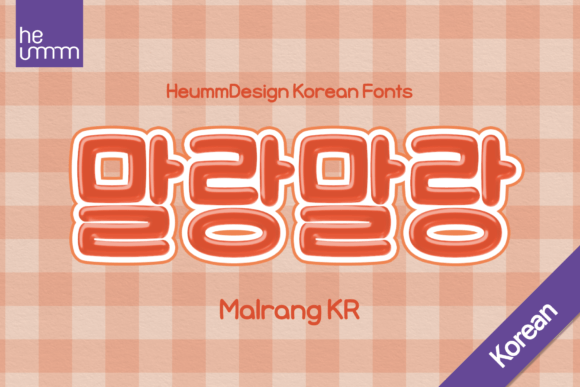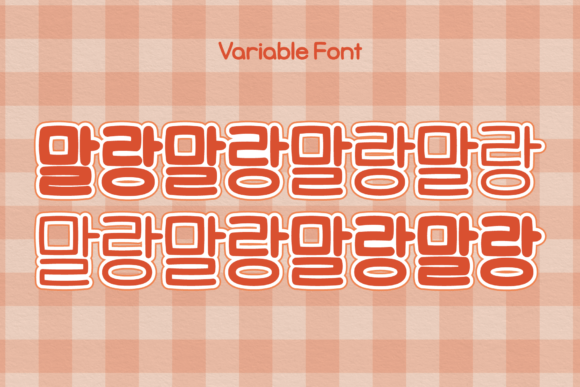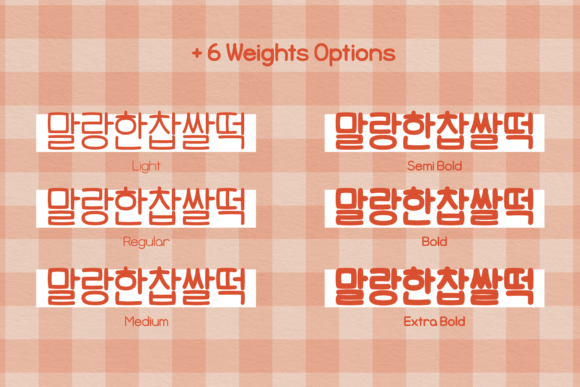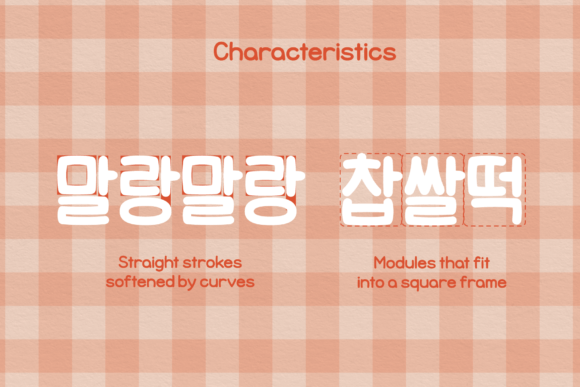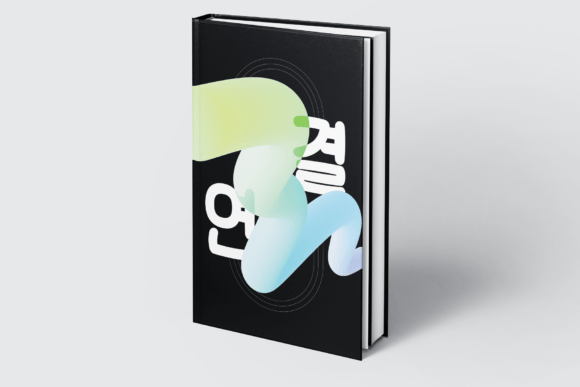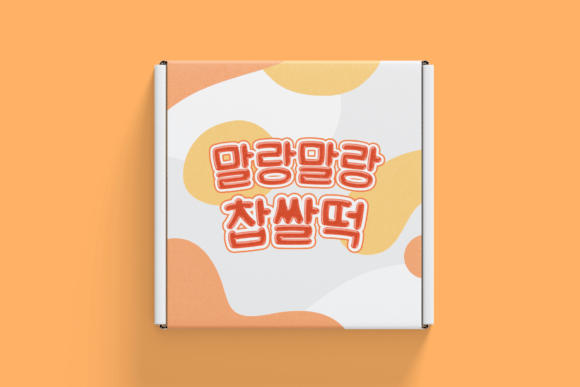
The Perfect Blend of Modernity and Tradition: Hu Malrang Kr Font
Imagine you’re sipping a warm cup of coffee on a chilly morning, surrounded by the gentle hum of creative energy. As a designer, you’re searching for that perfect font to bring your vision to life, something that effortlessly blends modernity with the timeless charm of traditional Korean typography. Enter the ‘Hu Malrang KR’ font, a game-changing addition to your design arsenal.
This innovative font is designed to provide a soft, rounded feel to its tightly packed modules, creating a visually appealing contrast that’s perfect for modern designs. With its variable function, you can fine-tune the thickness to suit your needs, and six basic weights are available for use in programs that don’t support the variable function. The ‘Hu Malrang KR’ font is a valuable addition to any designer’s toolkit, offering unparalleled flexibility and creative possibilities.
Hu Malrang Kr Font Key Features
- Font Family: Hu Malrang Kr is a unique Korean font family designed for various applications.
- Unique Characteristics: Hu Malrang Kr font features a distinctive and modern design, with clean lines and a sleek aesthetic that is well-suited for digital and print applications.
- Language Support: Supports the Korean language, making it an ideal choice for publications, websites, and other materials targeting a Korean-speaking audience.
Design Review: Hu Malrang Kr Font
At first glance, the Hu Malrang Kr font has a unique and modern aesthetic that catches the eye. ✨ The font’s bold lines and geometric shapes give it a distinctive look that would be perfect for modern and minimalist designs. ✨ The font’s adaptability to various sizes and styles also makes it a versatile choice for different applications.
However, upon closer inspection, I noticed some limitations that might impact its usability. ⚠️ The font’s legibility can be compromised at smaller font sizes, making it difficult to read for some users. ⚠️ Additionally, the font’s design may not be suitable for projects that require a more traditional or formal tone.
Pros and Cons:
- ✨ Unique and modern aesthetic
- ✨ Versatile and adaptable to various sizes and styles
- ⚠️ Limited legibility at smaller font sizes
- ⚠️ Not suitable for traditional or formal projects
Overall, I think the Hu Malrang Kr font is a great choice for modern and edgy designs. While it has its limitations, its unique aesthetic and versatility make it a valuable addition to any designer’s toolkit. With careful consideration and application, this font can help create eye-catching and memorable designs.
Hu Malrang Kr Font is commonly used for:
- Traditional Korean designs and layouts.
- Cultural and artistic projects that require a